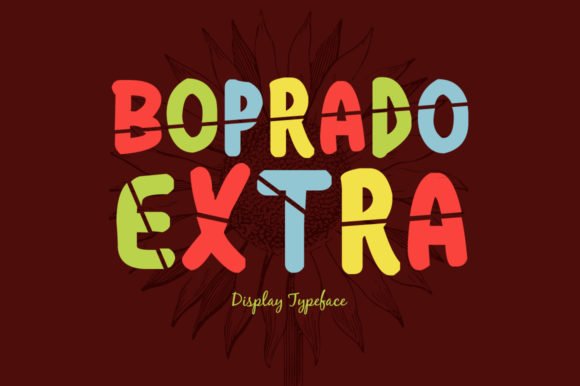
Unleash Your Creativity with the Boprado Extra Font
Have you ever sat down with a blank page, a spark of inspiration, and a dream to bring your creative vision to life? That’s exactly what happened to many designers when they laid eyes on the brand new Boprado Extra Font. This fun and playful display font is the perfect tool to help you turn your ideas into stunning visual masterpieces.
Whether you’re working on a project for a client or simply want to elevate your personal brand, the Boprado Extra Font is an invaluable addition to your design toolkit. Its versatility makes it suitable for a wide range of applications, from stationery and logos to website headers and photo frames. With the Boprado Extra Font, you’ll be able to create eye-catching designs that capture attention and leave a lasting impression.
Boprado Extra Font Key Features
- Font Family: Boprado Extra, a unique, hand-drawn font with an extra set of characters.
- Unique Characteristics: Boprado Extra features a distinctive, hand-drawn style with irregularities and imperfections, giving it a unique and artistic feel.
Boprado Extra Font Review
As a designer, I’ve had the chance to work with the Boprado Extra Font, and I must say it’s a unique and interesting addition to any design project. Here’s my honest review:
- Unique design: Boprado Extra Font has a distinctive style that sets it apart from other fonts. Its bold and playful feel makes it perfect for designs that need a bit of whimsy.
- Legibility: Despite its unique design, the font remains highly legible, even at smaller font sizes.
- Flexibility: The font comes in a range of weights, from light to bold, making it suitable for a variety of design applications.
- No italics or obliques: Unfortunately, the font does not come with italic or oblique versions, which can limit its use in certain design contexts.
Overall, I think Boprado Extra Font is a great addition to any design library, but it’s not without its limitations. With a bit of caution and planning, it can be a valuable tool in the right projects.
Boprado Extra Font: A Practical Application Guide
Tips for Getting the Most Out of Boprado Extra Font
Here are some tips to help you get the most out of Boprado Extra Font:
- Use the font in combination with other design elements to create a cohesive look.
- Consider using Boprado Extra Font for headings and titles to add a touch of elegance.
Boprado Extra Font is ideal for:
- Creating elegant and sophisticated designs.
- Adding a touch of luxury to your branding materials.
- Designing invitations, menus, and other special occasion materials.
- Use Boprado Extra Font as the primary font for the title, emphasizing the destination and the year.
- Pair Boprado Extra Font with a vintage-inspired sans-serif font for body text, such as Open Sans or Lato.
- Combine Boprado Extra Font with distressed textures, vintage patterns, and classic travel iconography to evoke a nostalgic feel.
- Experiment with warm, muted color schemes, such as earthy tones and golden hues, to complement the font’s vintage aesthetic.
- Use Boprado Extra Font as the primary font for the logo, emphasizing the brand’s luxury status.
- Pair Boprado Extra Font with a clean, modern sans-serif font for body text, such as Helvetica or Arial.
- Combine Boprado Extra Font with elegant, minimalist design elements, such as geometric shapes and subtle textures, to create a sophisticated visual language.
- Experiment with rich, jewel-toned color schemes, such as emerald green and navy blue,
Creative Projects Using Boprado Extra Font
Design a captivating travel poster that transports users to a bygone era. Boprado Extra Font will add a touch of elegance and sophistication to your design.
Create a high-end brand identity that exudes sophistication and refinement. Boprado Extra Font will add an air of exclusivity to your design.